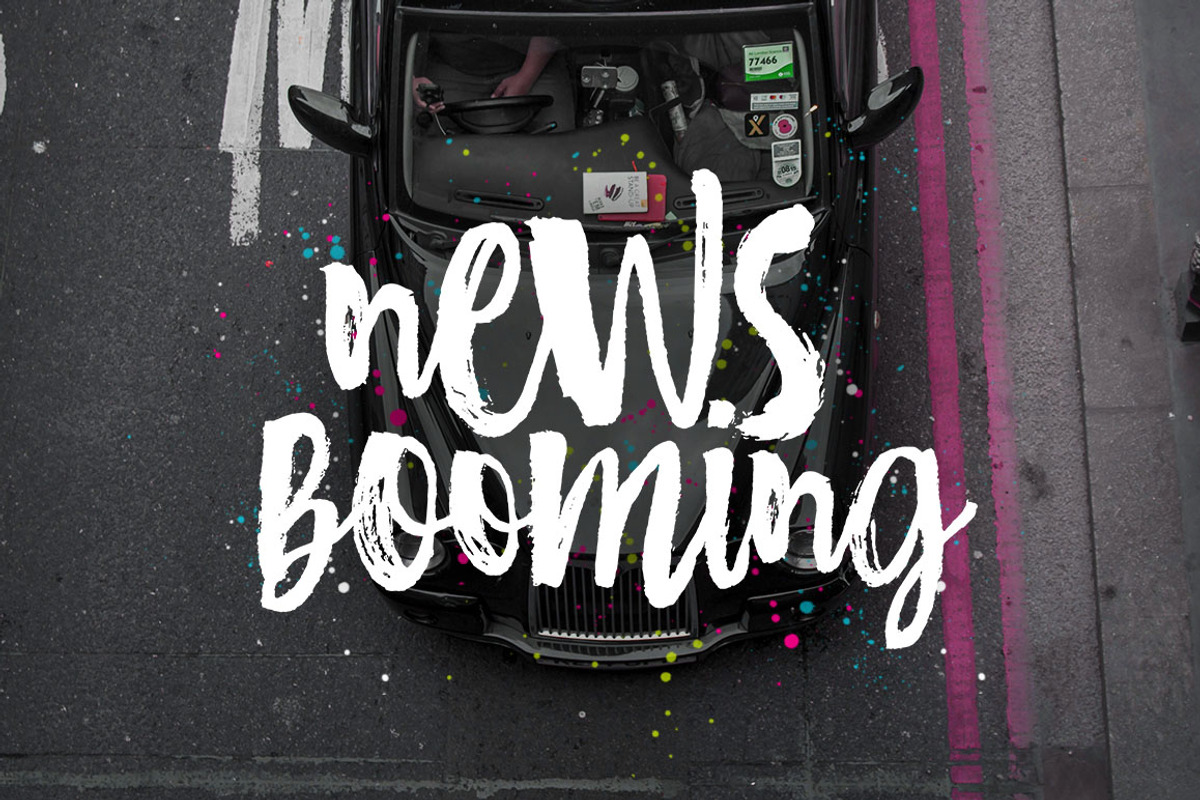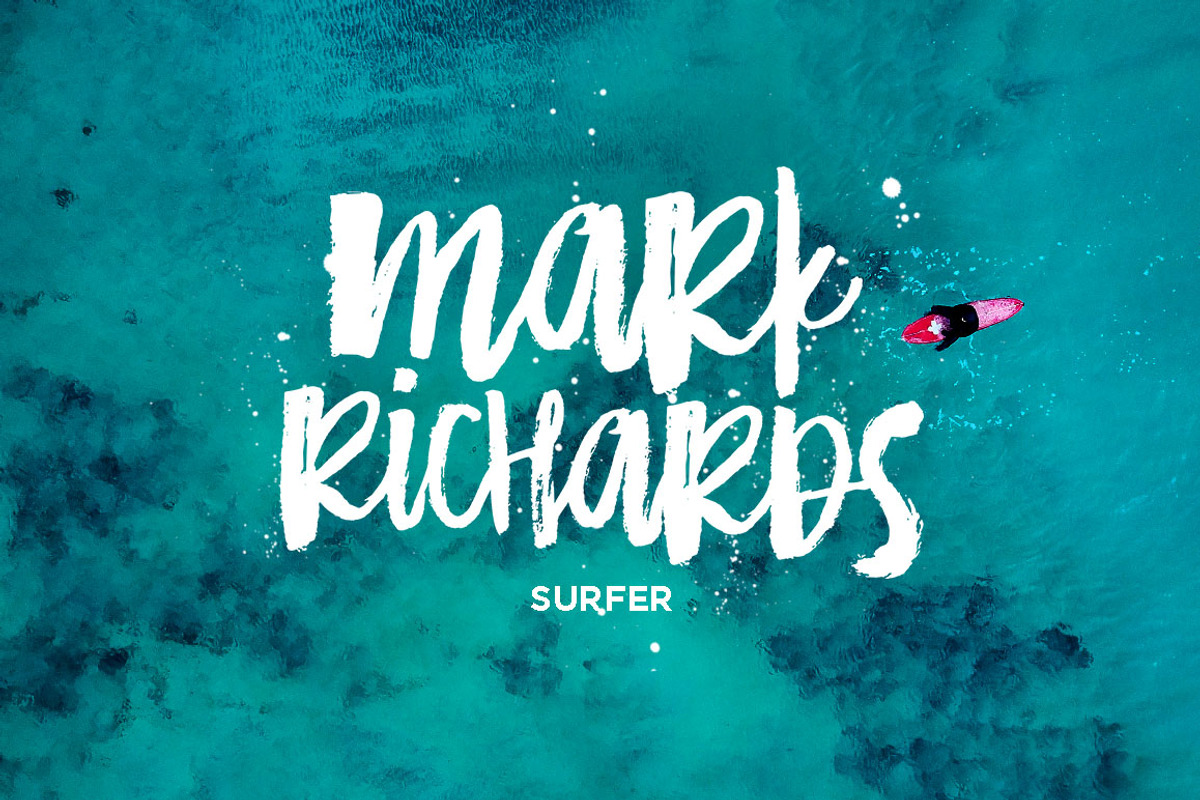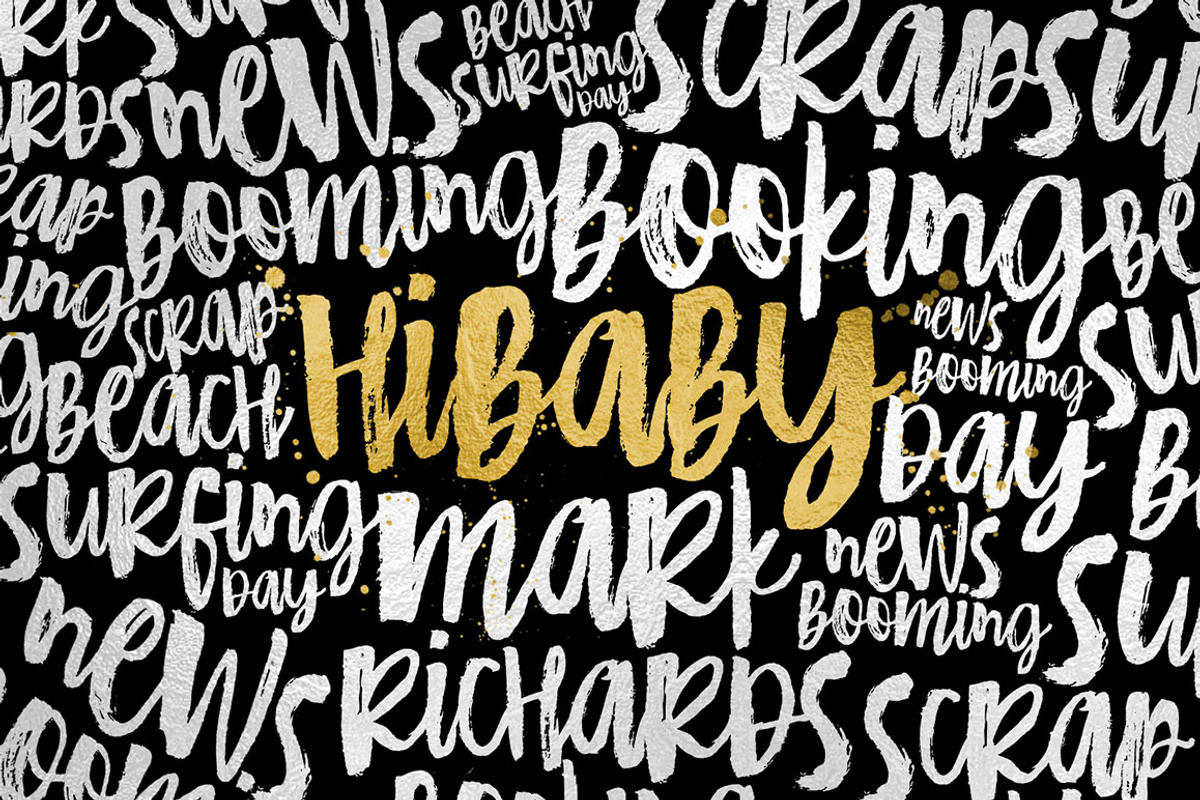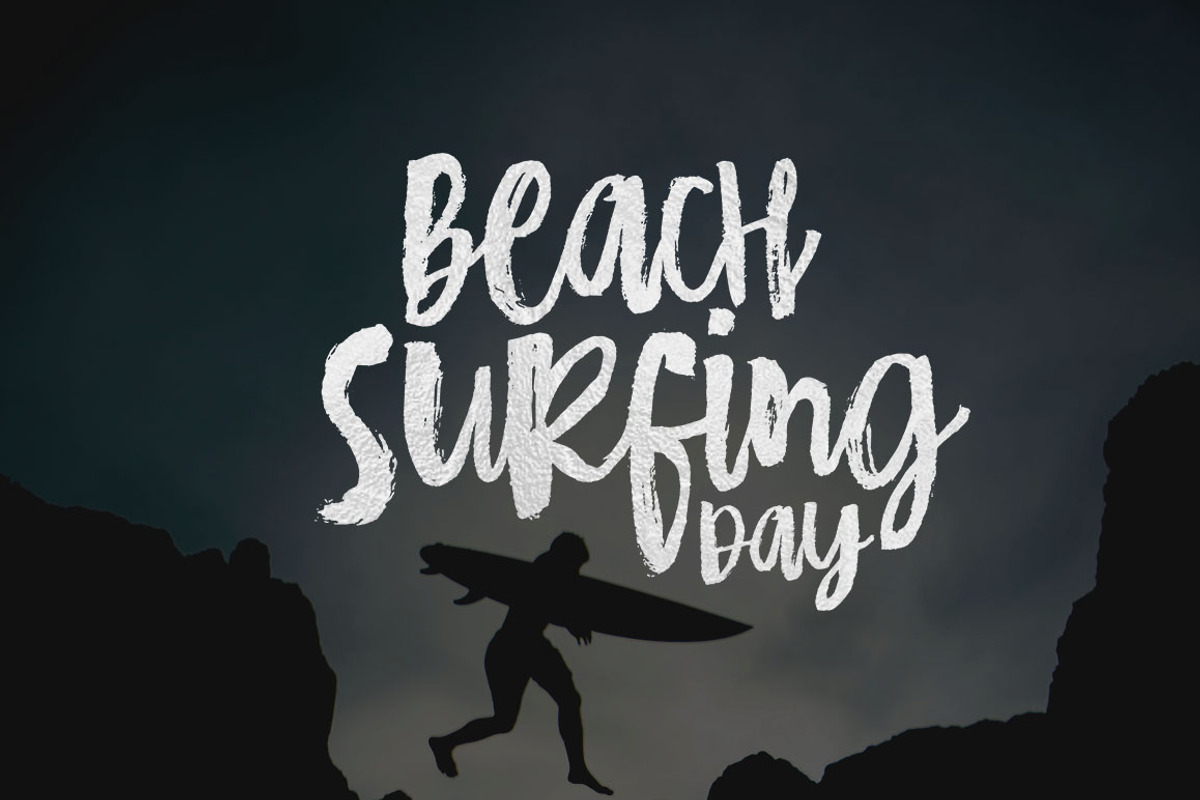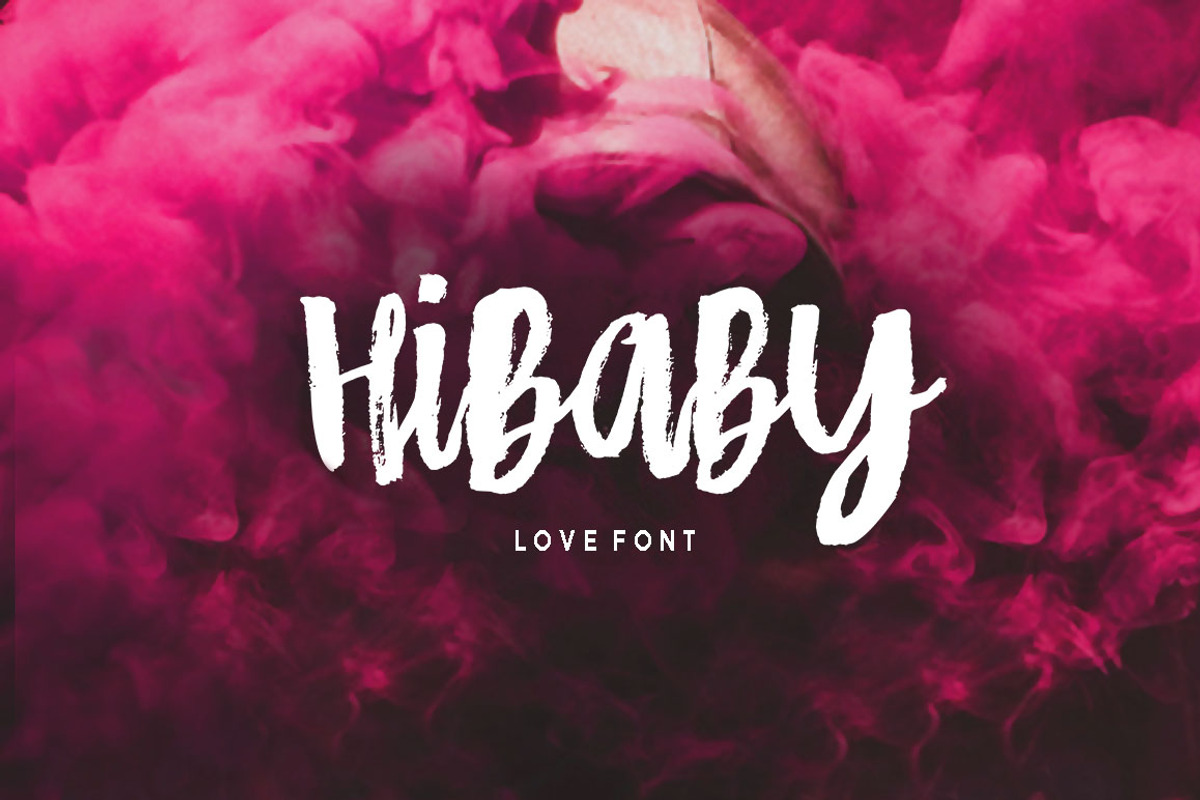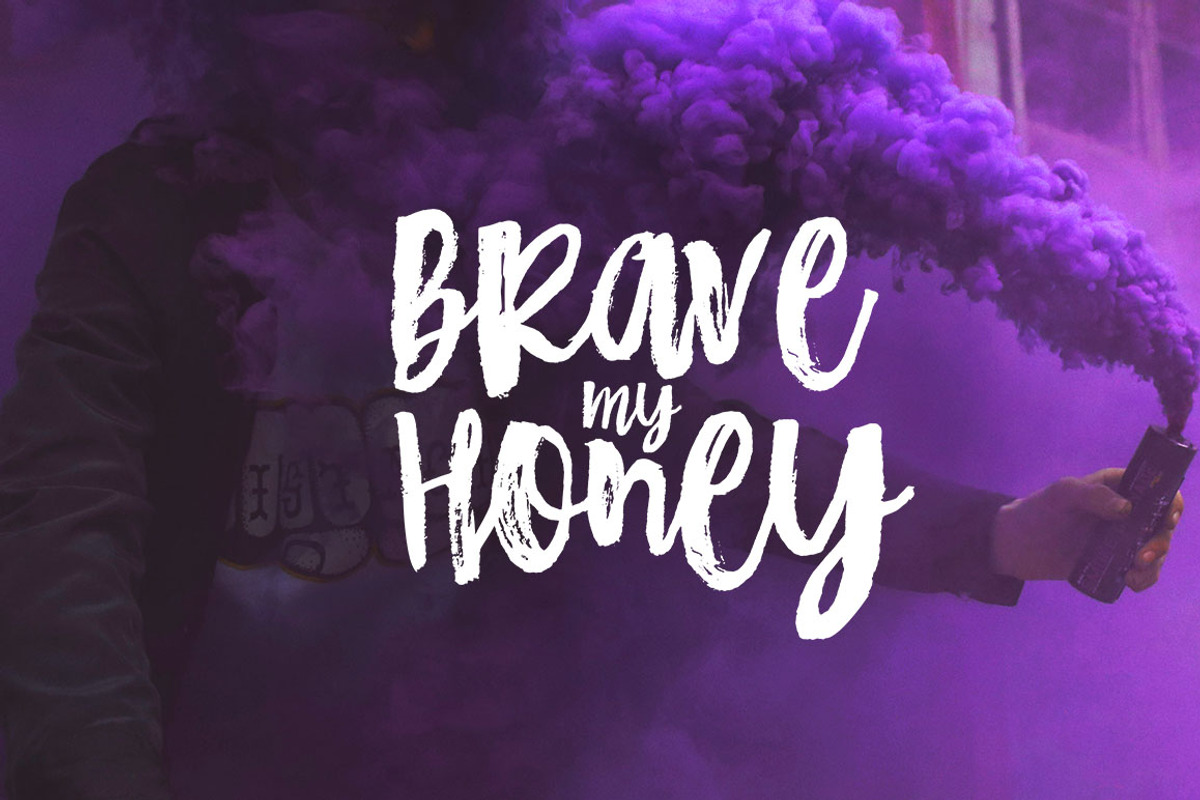
Hibaby Love Font
😍 HIBABY is a beautiful handpainted font , organic, fun, with a mixture of lowercase and uppercase is very interesting and unique.
Hibaby Love Font by Dhan Studio fits naturally into Branding, posters, packaging, typography.